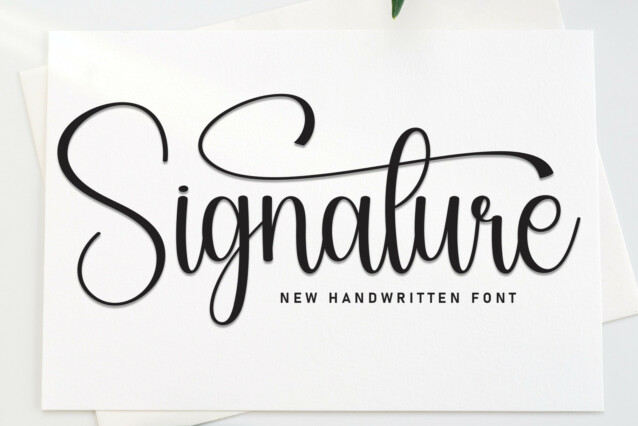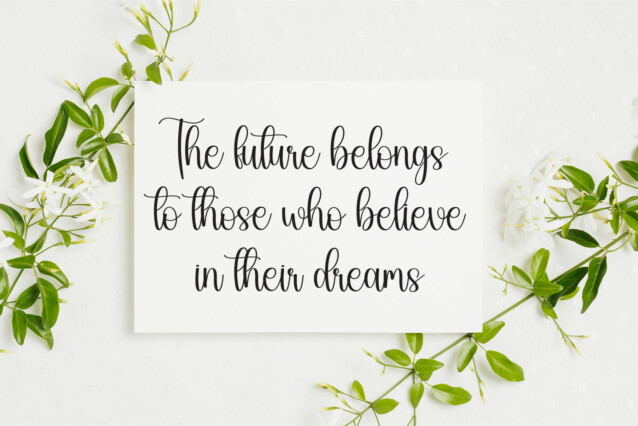
Signature Calligraphy Font
Signature Calligraphy Font is a lovely and timeless handwritten font. It is the best choice for creating eye catching logos, branding and quotes. Every letter has a unique and beautiful touch, which will make your design come alive!